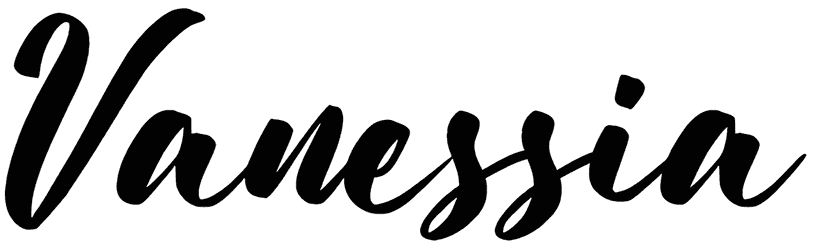
Vanessia Font
A longhand outward is always one of the van choices for performing enchanting designs. Vanessia is a script font with a classic but modern mood that will perfectly be harmonized with many topics. Place Vanessia on your u…
A longhand outward is always one of the van choices for performing enchanting designs. Vanessia is a script font with a classic but modern mood that will perfectly be harmonized with many topics. Place Vanessia on your upcoming design same as posters, covers, illustrations, or the like, and have a cheery time.